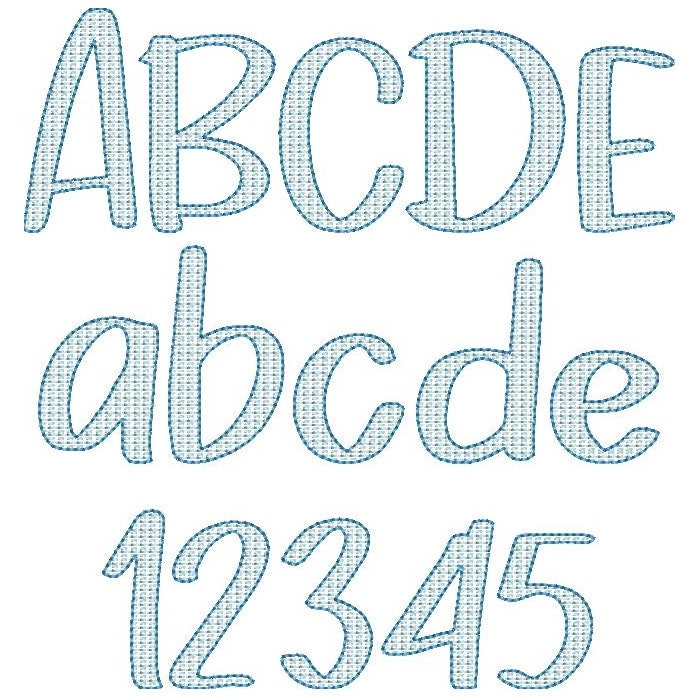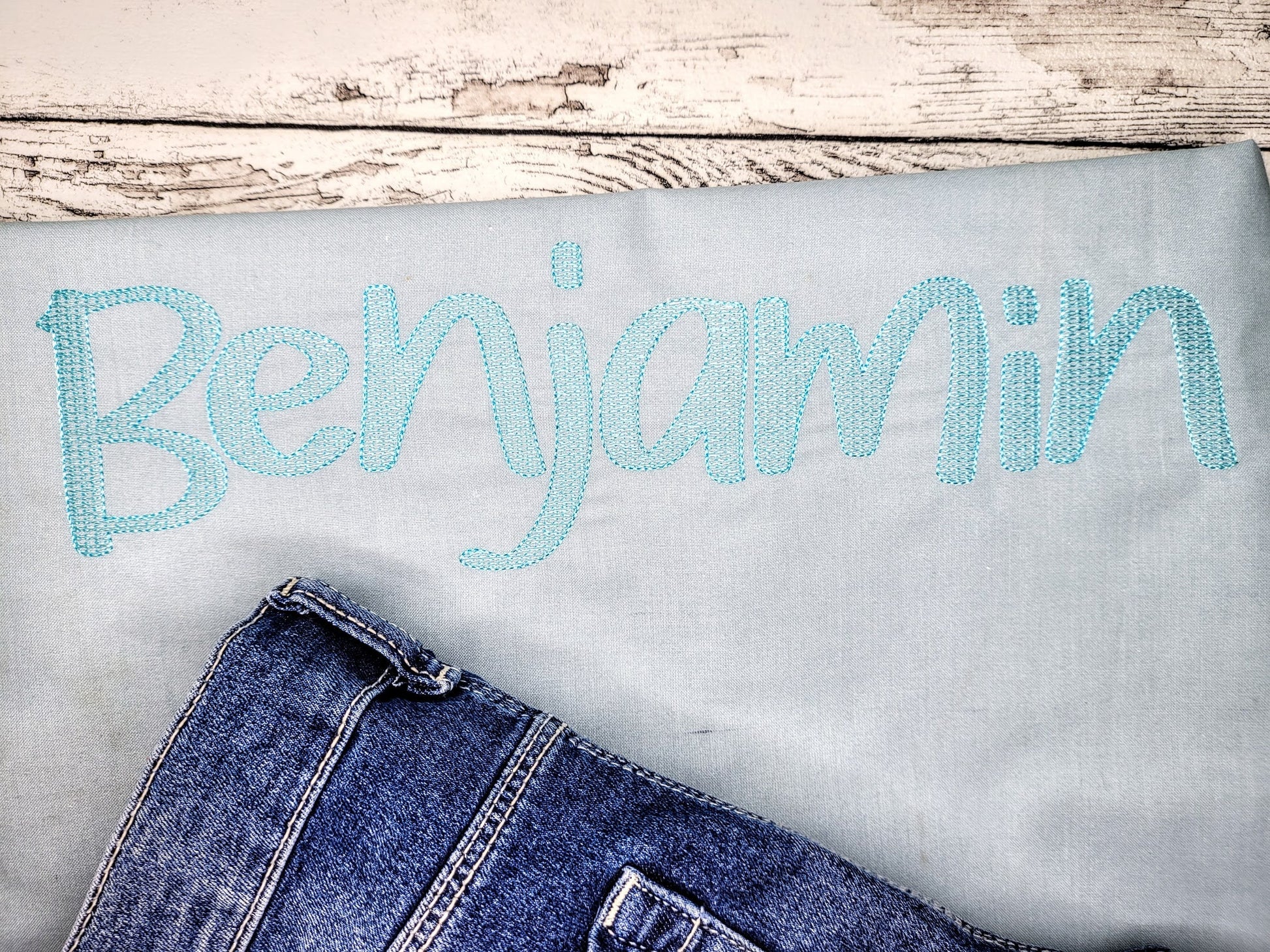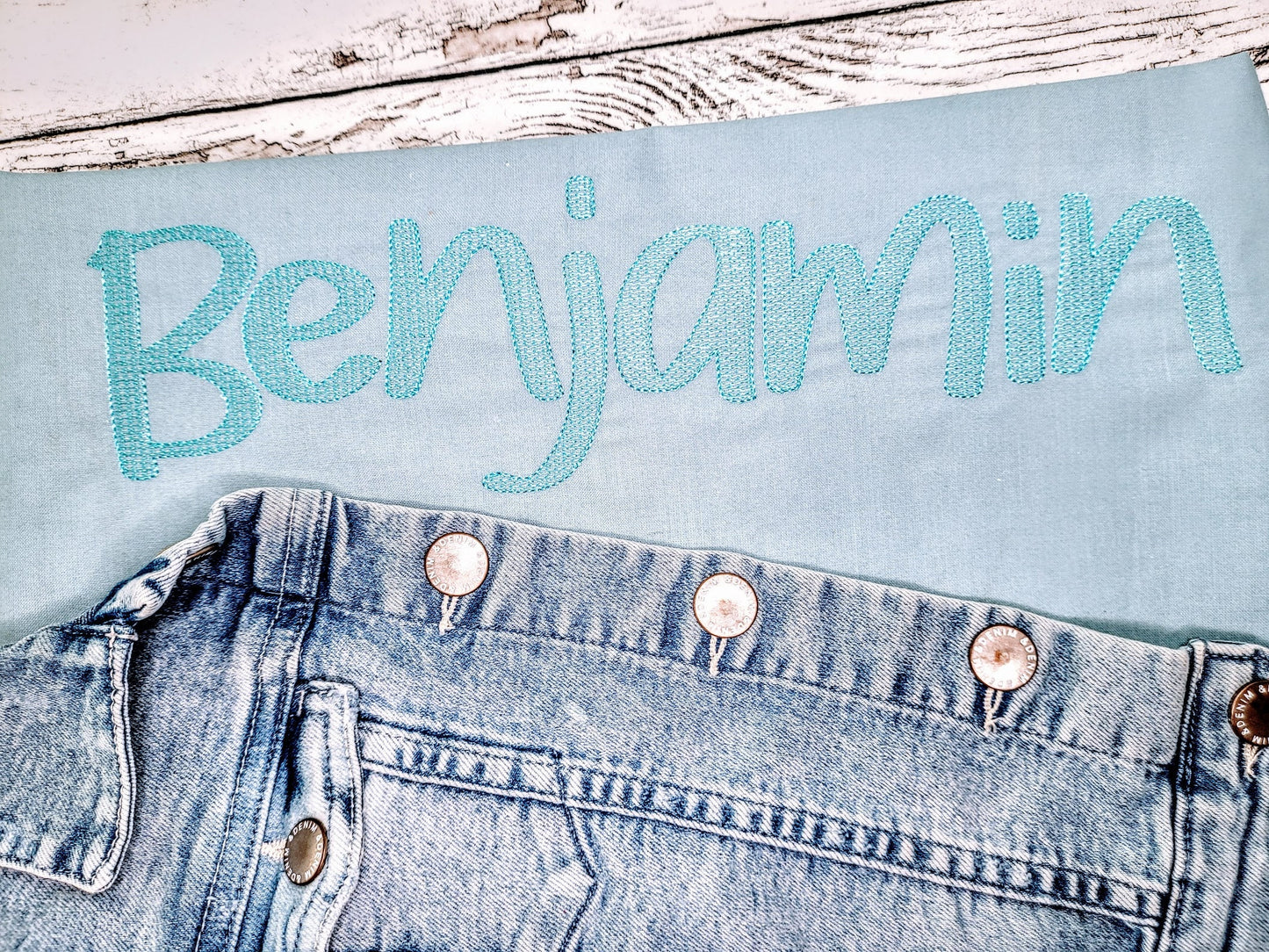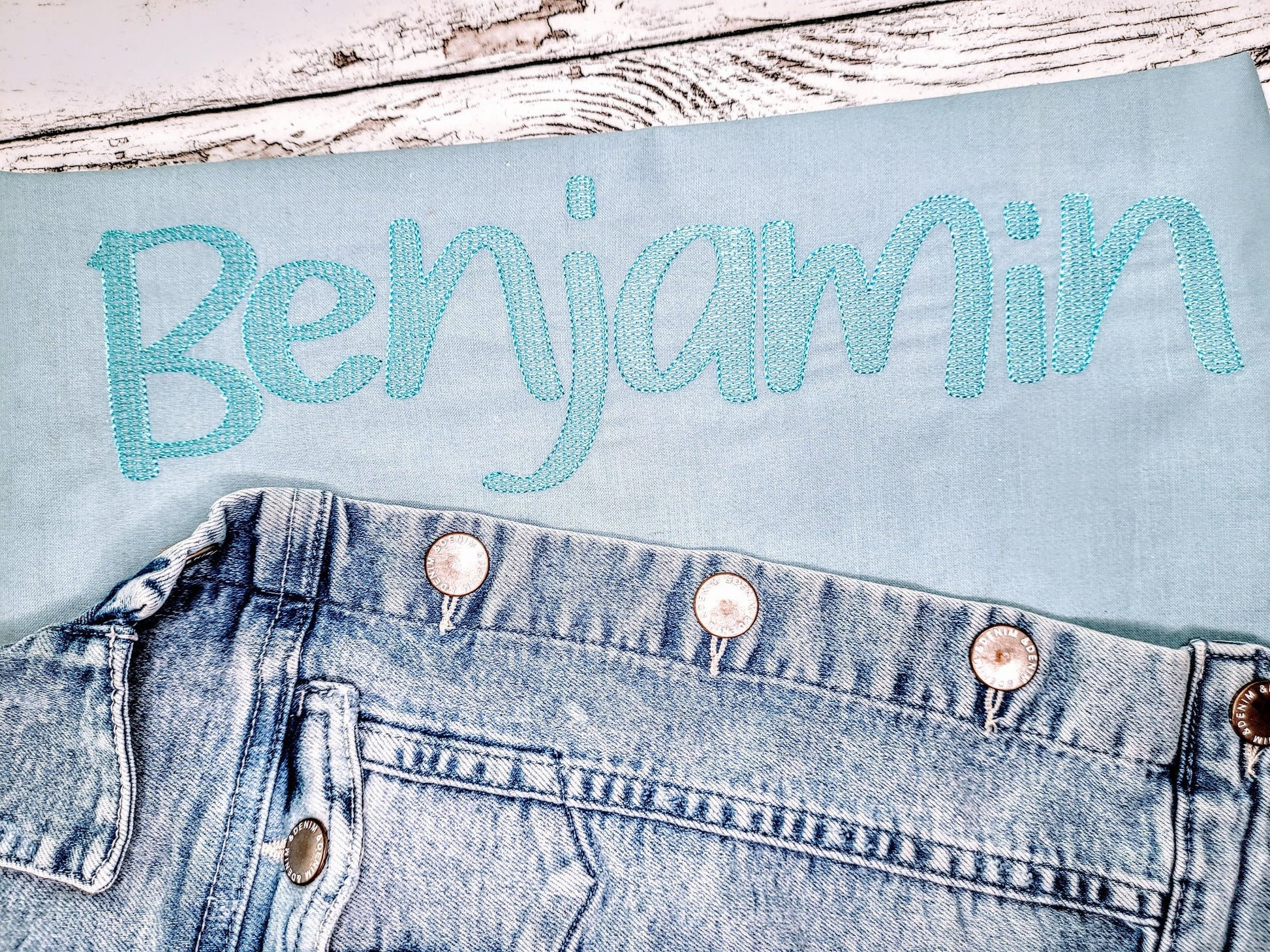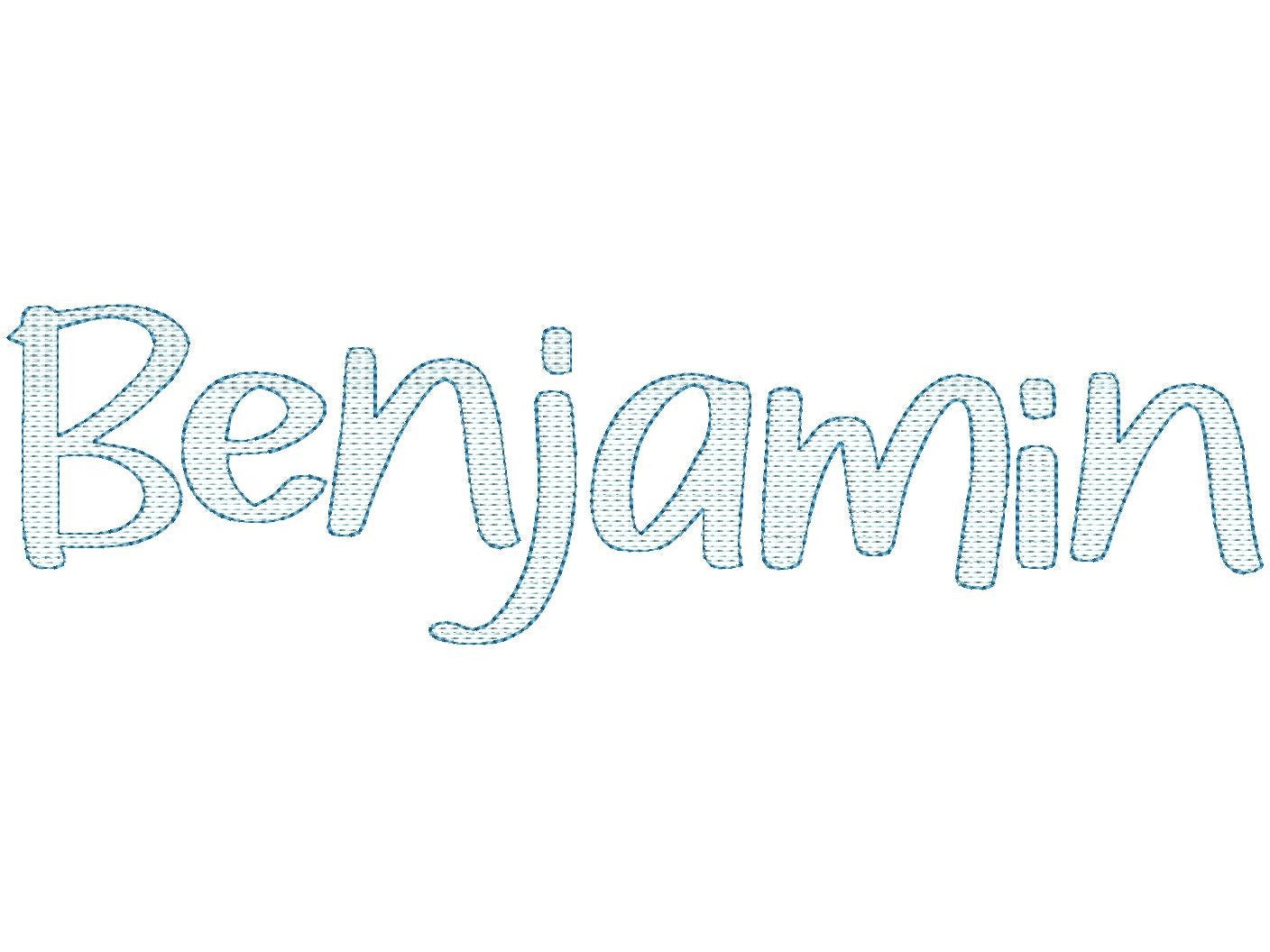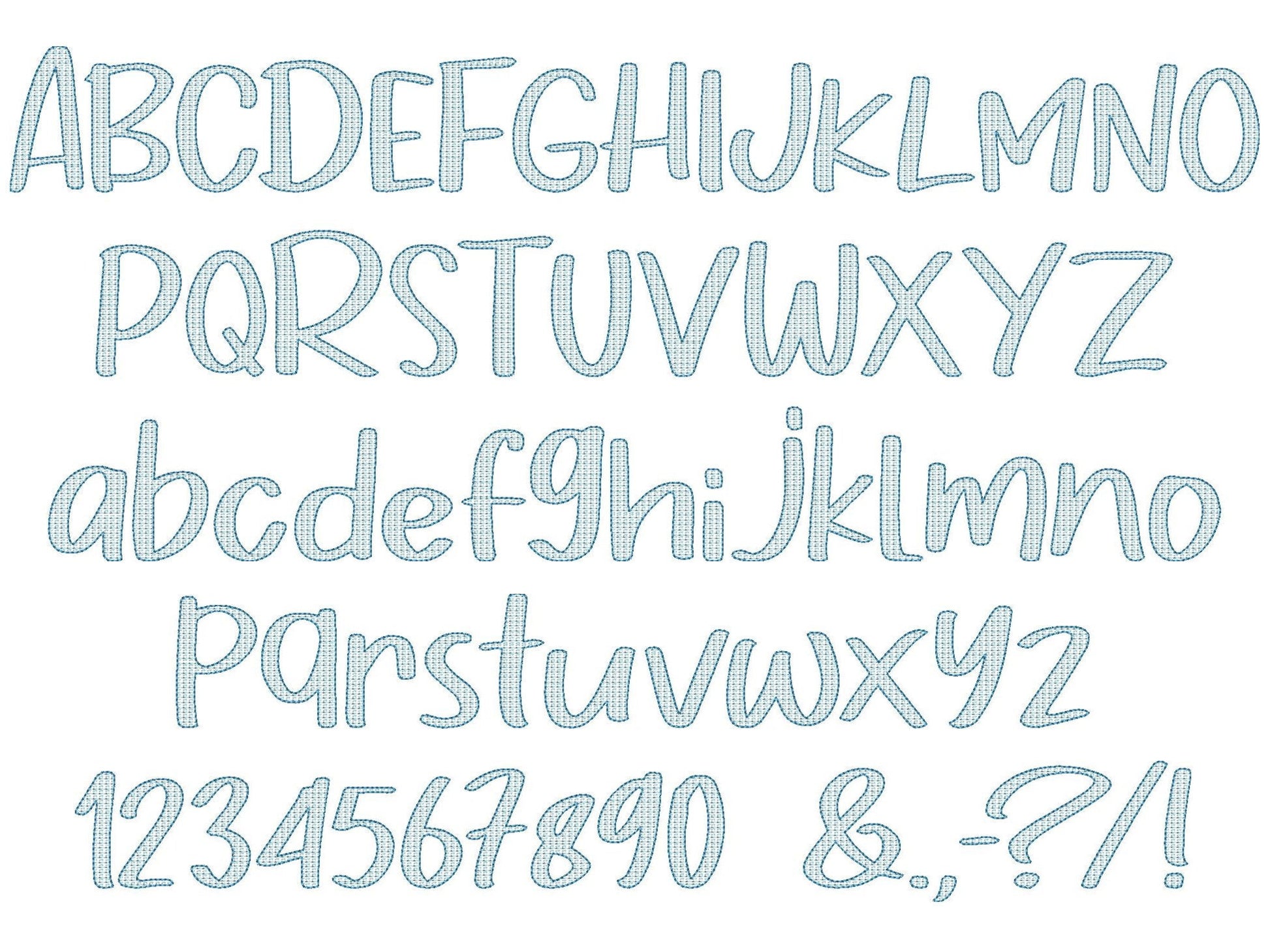
This font is a quick stitch and it has a low density, light fill stitch and bean stitch outline, it looks best on white or light colors.
The background fabric looks through. Stunning effect.
Included uppercase and lowercase letters, numbers and punctuation.